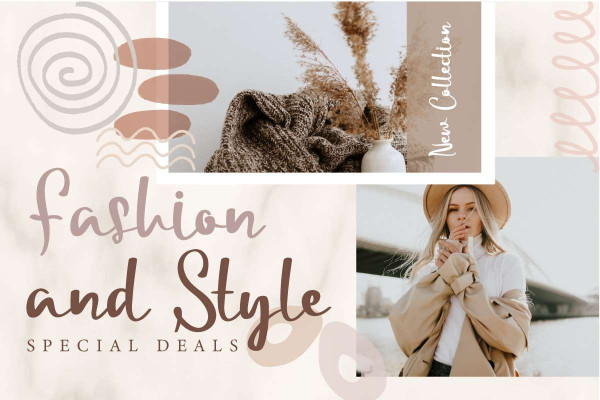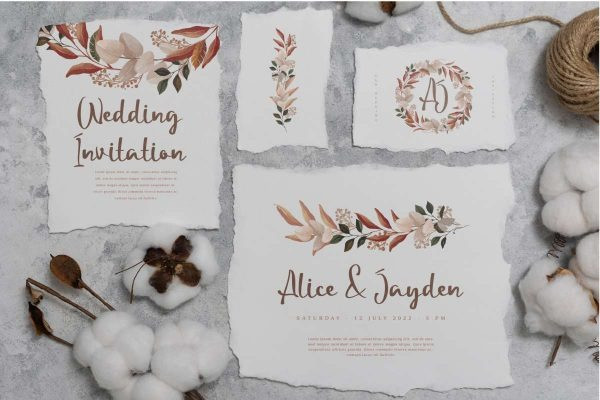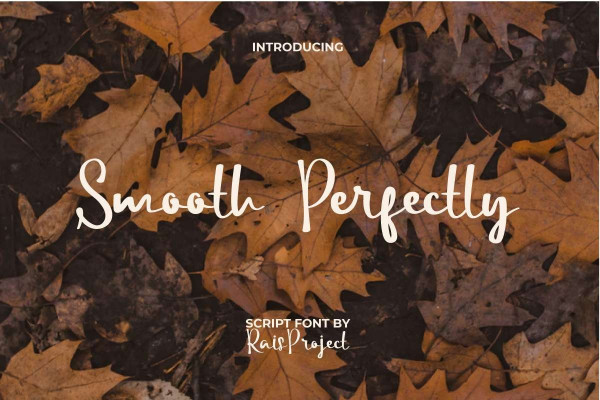
Smooth Perfectly Font
Smooth Perfectly Font is a beautiful script font with handwriting style. The lines in this font flow smoothly and beautifully, giving it an eye-catching look. Use this font to enhance your projects, such as business card, flyer, label, invitation, packaging design, quotes, stationery, title, website, etc.
Smooth Perfectly Font includes a full set of Uppercase and Lowercase Letters, Numerals, and large range of punctuation. This font also features ligature character to add aesthetics to any project you create. This font has an attractive appearance making it suitable for many industries, such as author, event tenant, fashion brand, jewelry and accessories, perfume, photography, printing, publishing, salon, wedding, writer, and more!